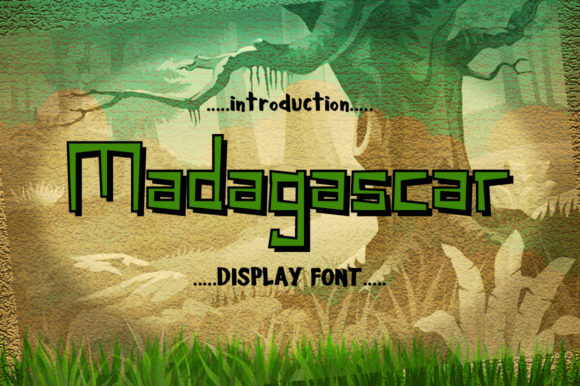
Madagascar Font
Behold, the Madagascar Font – a typographic masterpiece that will ignite your imagination and transform your designs into captivating spectacles. This display font, meticulously crafted by the talented InDhika, bursts with personality and charm, making it the perfect choice for adding a touch of whimsy and delight to any project.
With its playful curves and distinctive letterforms, the Madagascar Font possesses an undeniable charm that will make your designs stand out from the crowd. It's a versatile font that lends itself effortlessly to a wide range of applications, from eye-catching logos and branding to playful invitations and greeting cards.
Whether you're a seasoned designer or just starting out, the Madagascar Font is your perfect companion. Its user-friendly nature makes it accessible to everyone, allowing you to unleash your creativity without limits. Embrace the fun and lighthearted spirit of the Madagascar Font, and watch as your designs come alive with a vibrant energy that captivates and inspires.
• Unleash Your Creativity: With its playful and whimsical style, the Madagascar Font empowers you to express your unique personality through your designs. Create projects that radiate joy, happiness, and a touch of whimsy.
• Stand Out from the Crowd: In a world of ordinary fonts, the Madagascar Font stands tall, demanding attention with its captivating letterforms and distinctive style. Make a statement and leave a lasting impression with every design you create.
• Endless Possibilities: The Madagascar Font is a versatile chameleon, adapting effortlessly to a myriad of design needs. From playful logos and branding to enchanting invitations and greeting cards, this font knows no bounds.
• User-Friendly Charm: Whether you're a seasoned design pro or just dipping your toes into the creative waters, the Madagascar Font welcomes you with open arms. Its user-friendly nature makes it easy to use, ensuring a smooth and enjoyable design experience.
Embrace the Madagascar Font today and embark on a creative journey filled with joy, laughter, and endless possibilities. Let your imagination soar and create designs that speak to the heart, leaving a trail of smiles in their wake.